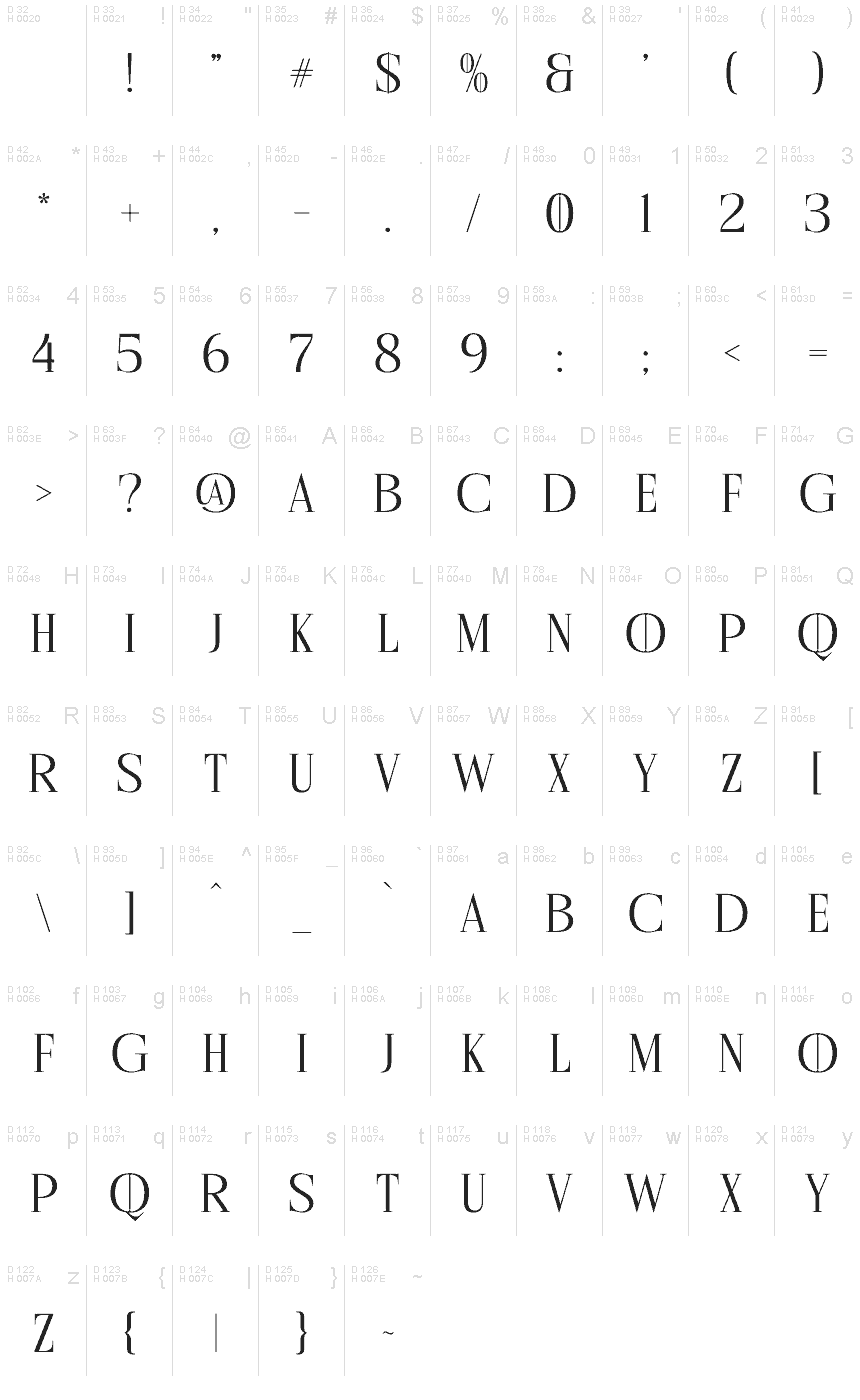
Cholten
Cholten font by Storytype Studio is a sophisticated, modern serif font with an elegant and geometric influence. It features graceful lines and an exquisite appearance that delivers a touch of class, refinement, and excellence to every character. Each individual letter is seamlessly styled to connect perfectly with the next in order to construct a beautifully written whole.